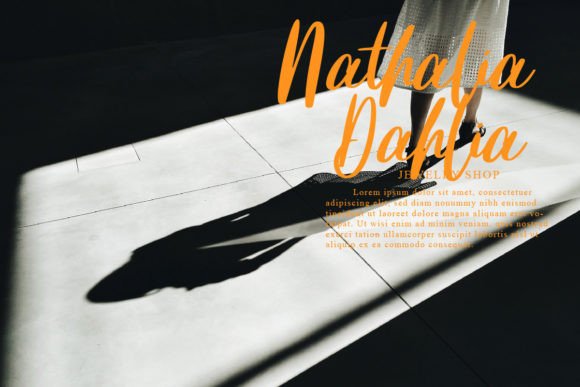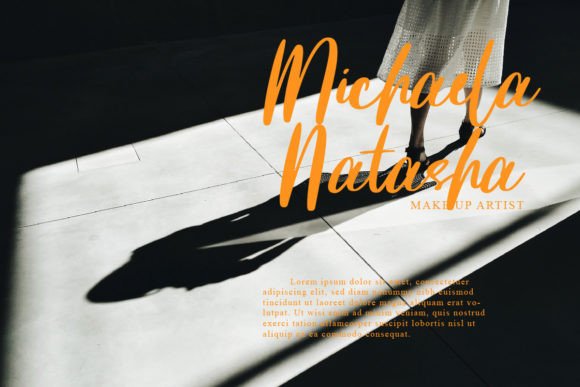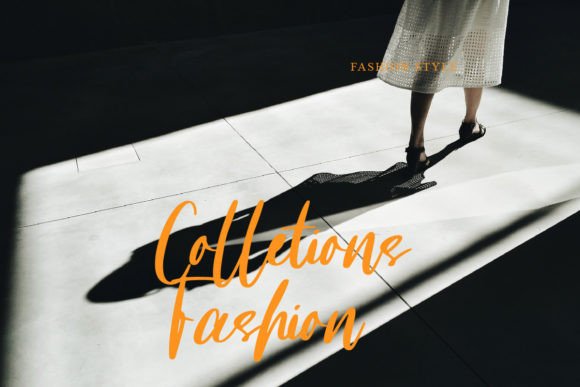
Introduction to Nicola Hamilton Font Font
Fonts play a crucial role in design, and the Nicola Hamilton Font font is a typeface that brings both character and versatility to any project. Whether you’re working on a branding project, a website, or a print design, the Nicola Hamilton Font font offers a unique style that can elevate your work.
Nicola Hamilton is an elegant handwritten font that is perfect for adding an attractive, personal touch to any design.
With its flowing loops and delicate details, it will bring a touch of beauty and sophistication .
Key Features of Nicola Hamilton Font Font
Why Choose Nicola Hamilton Font Font?
The Nicola Hamilton Font font is more than just a typeface – it’s a design tool that helps you communicate your message with style and clarity. Its unique character set and versatile design make it suitable for a wide range of applications, from elegant invitations to bold headlines.
With its carefully crafted letterforms and balanced proportions, the Nicola Hamilton Font font ensures readability and visual appeal across all mediums.
What makes Nicola Hamilton Font font special?
The Nicola Hamilton Font font stands out with its unique design, exceptional readability, and versatility across various design applications.